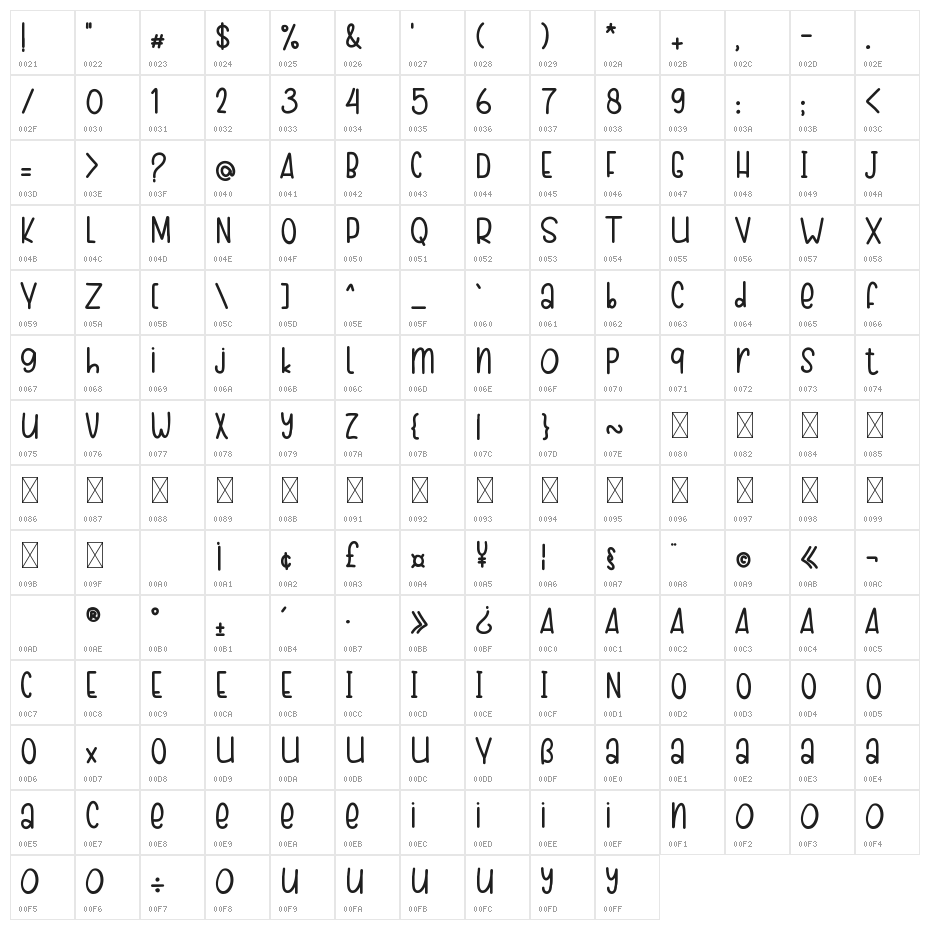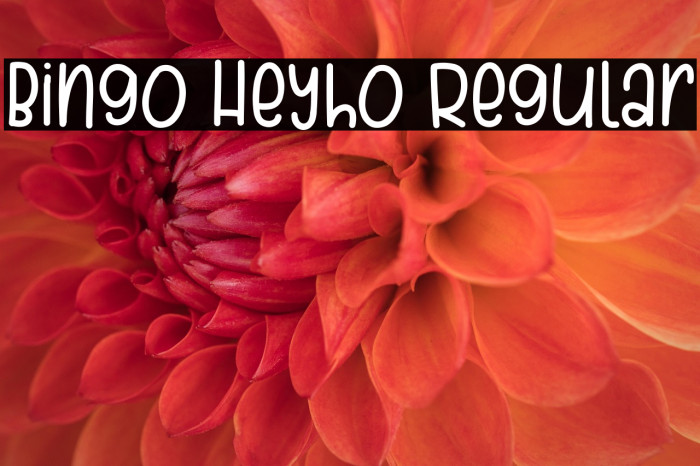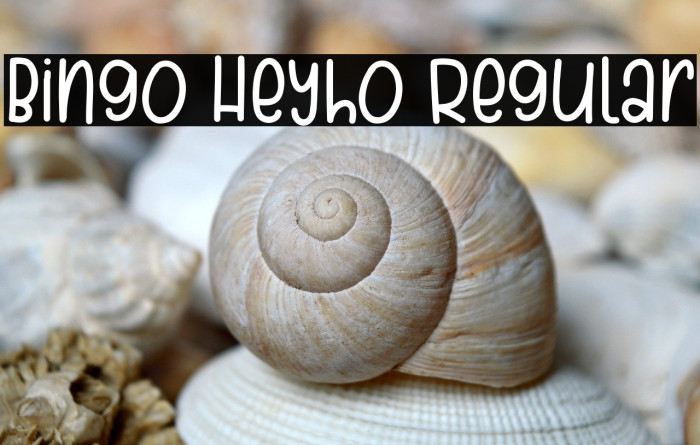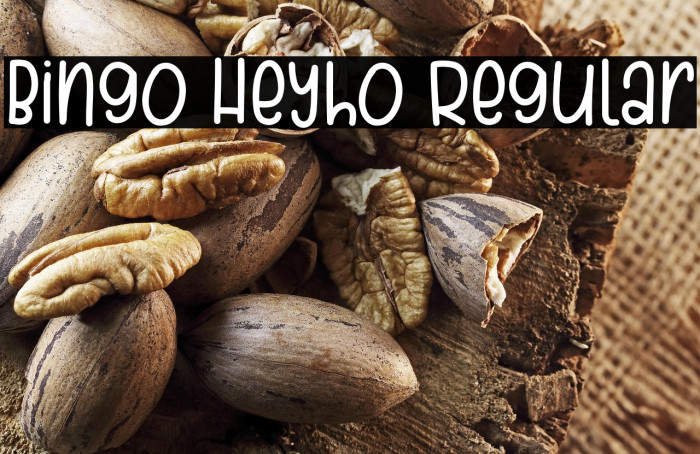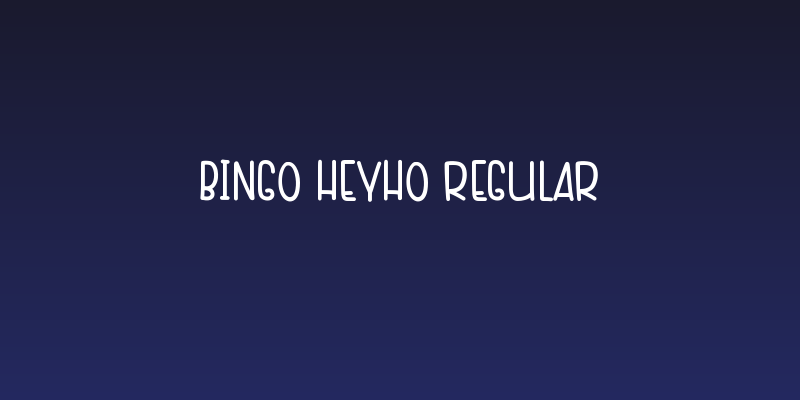
Bingo Heyho Regular Font
Bingo Heyho Regular Description
A playful, handwritten font with rounded edges and a casual style, suitable for informal and fun designs.
| Use Case | Headlines, Informal text, Branding |
| Proposed Projects | Children's books, casual invitations, playful branding. |